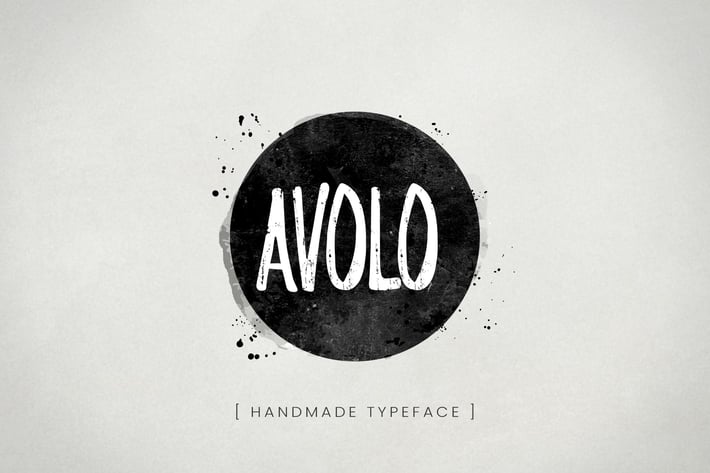
Avolo Typeface
Avolo Typeface – a combination of vintage and modern! will great on poster, flyer, t-shirt, your brand identity, invitation like greeting cards, branding materials, business cards, quotes, posters, and more!